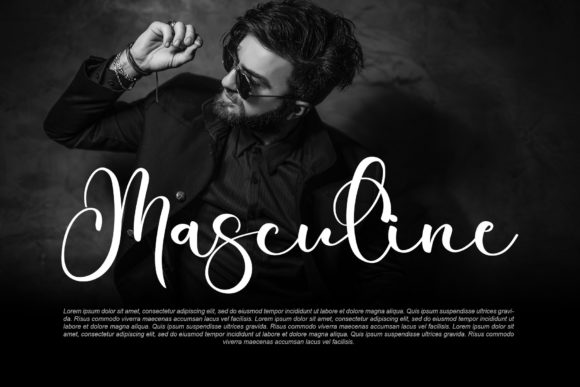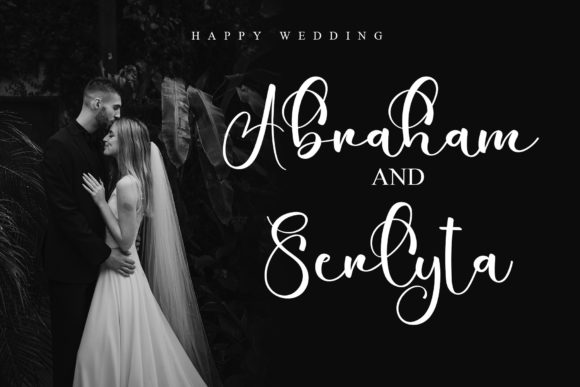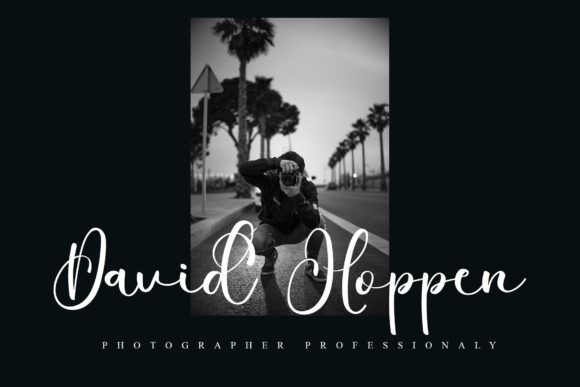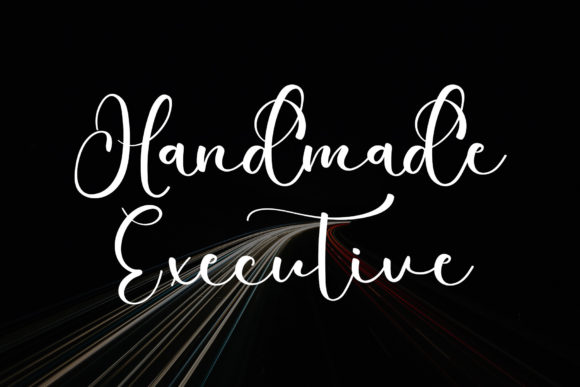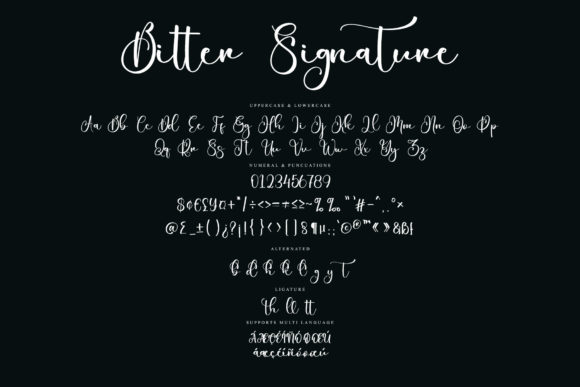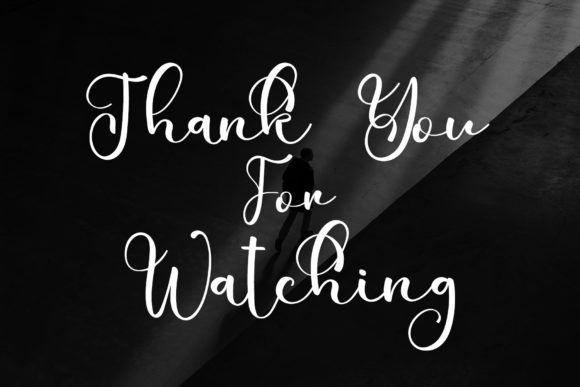
Bitter Signature Font: Elevate Your Designs with Elegance and Class
Are you looking for a font that adds a touch of sophistication and refinement to your designs? Look no further than Bitter Signature, a lovely and delicate script font that exudes elegance and class. This beautiful font is perfect for designers, crafters, and anyone who wants to create stunning visual content that stands out from the crowd.
What is Bitter Signature Font?
Bitter Signature is a carefully crafted script font that is designed to bring a touch of luxury and refinement to your designs. With its delicate lines, elegant swashes, and beautiful glyphs, this font is perfect for creating stunning headings, titles, and quotes that add a touch of sophistication to any design.
Whether you’re a designer, crafter, or DIY enthusiast, Bitter Signature is the perfect font for anyone who wants to add a touch of elegance and class to their work. From wedding invitations and party decorations to branding and marketing materials, this font is versatile and can be used for a wide range of design projects.
Key Features of Bitter Signature Font
So, what makes Bitter Signature font so special? Here are some of its key features:
- PUA Encoded: Bitter Signature is PUA (Private Use Area) encoded, which means you can access all of the glyphs and swashes with ease. This makes it easy to use the font and customize it to your needs.
- Elegant and Delicate: The font features delicate lines, elegant swashes, and beautiful glyphs that add a touch of sophistication to any design.
- Versatile: Bitter Signature is a versatile font that can be used for a wide range of design projects, from wedding invitations and party decorations to branding and marketing materials.
Design Ideas Using Bitter Signature Font
Bitter Signature font is a versatile font that can be used for a wide range of design projects. Here are some design ideas to get you started:
- Wedding Invitations: Use Bitter Signature font to create beautiful wedding invitations that add a touch of elegance and sophistication.
- Party Decorations: Use the font to create stunning party decorations, such as banners, garlands, and signs.
- Branding and Marketing: Use Bitter Signature font to create professional-looking branding and marketing materials, such as logos, brochures, and business cards.
- Social Media Graphics: Use the font to create stunning social media graphics, such as Facebook posts, Instagram stories, and Twitter headers.
In conclusion, Bitter Signature font is a beautiful and elegant script font that is perfect for designers, crafters, and anyone who wants to add a touch of sophistication and refinement to their designs. With its delicate lines, elegant swashes, and beautiful glyphs, this font is sure to elevate your designs and make them stand out from the crowd. So why wait? Download Bitter Signature font today and start creating stunning designs that exude elegance and class!